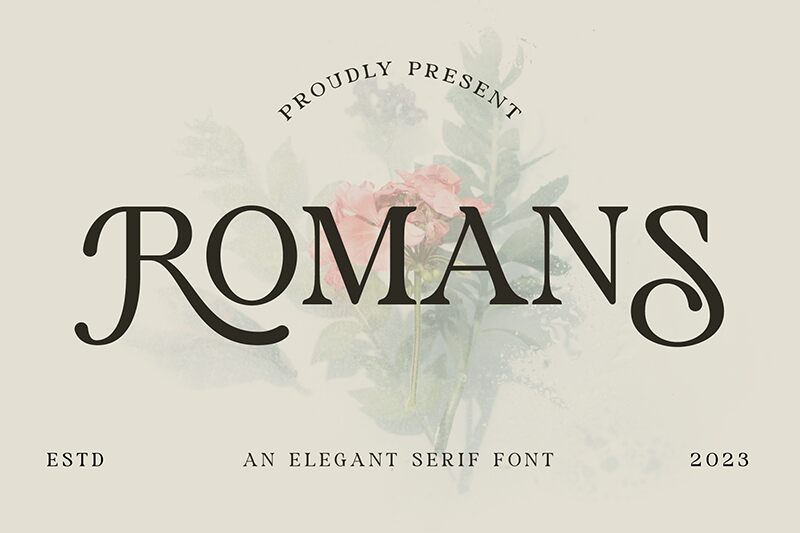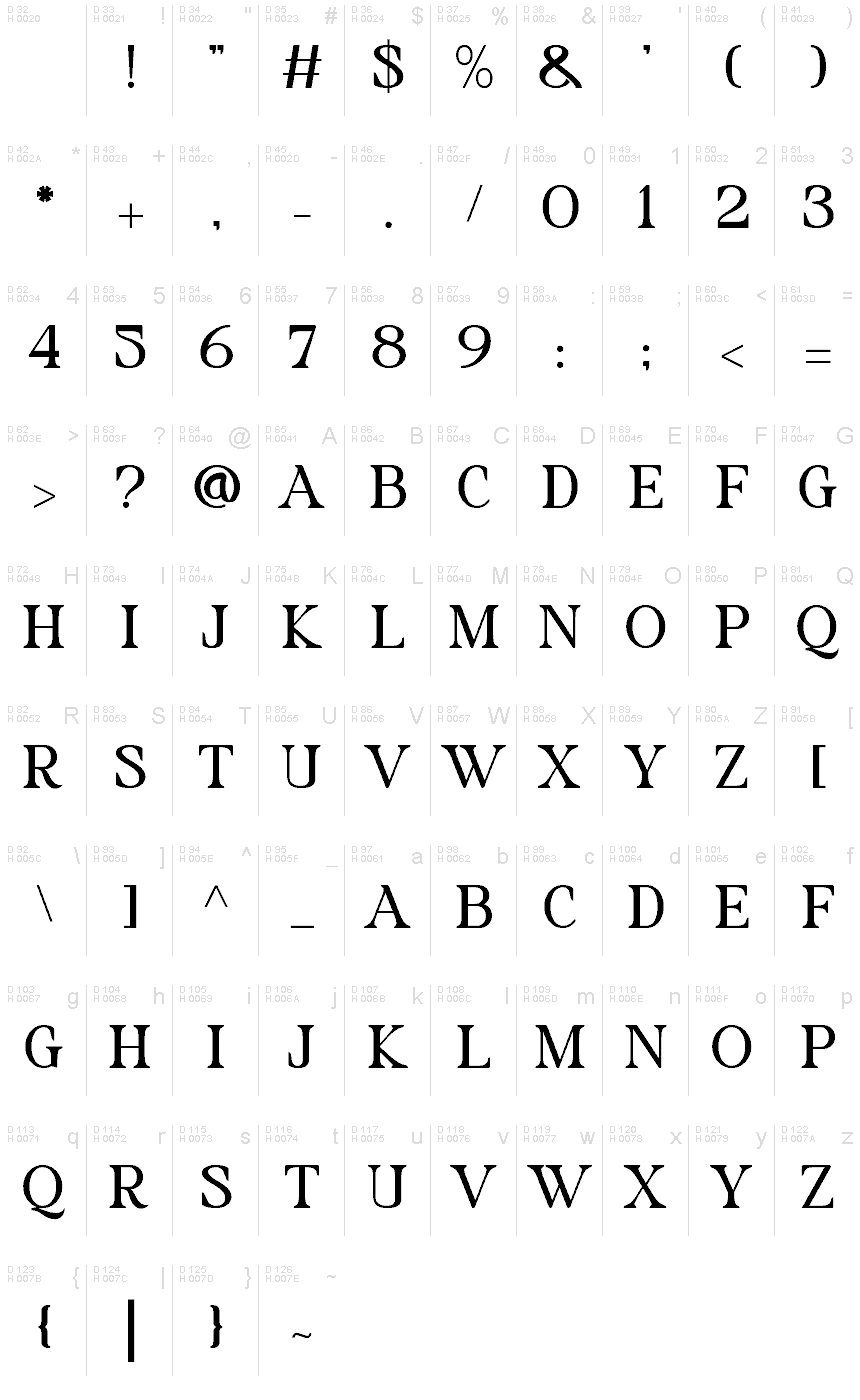
ROMANS
Romans font by Muflihin Nurhabib is a free serif font that captures timeless elegance and sophistication. Classic and refined, it projects a traditional yet authoritative presence, making it perfect for designs requiring both style and substance. Its refined appearance makes this typeface highly versatile while retaining readability.
Suitable for all design occasions, Romans is ideal for editorial magazines, books, newspapers, business branding, product packaging, film titles, apparel designs, posters design and so much more.